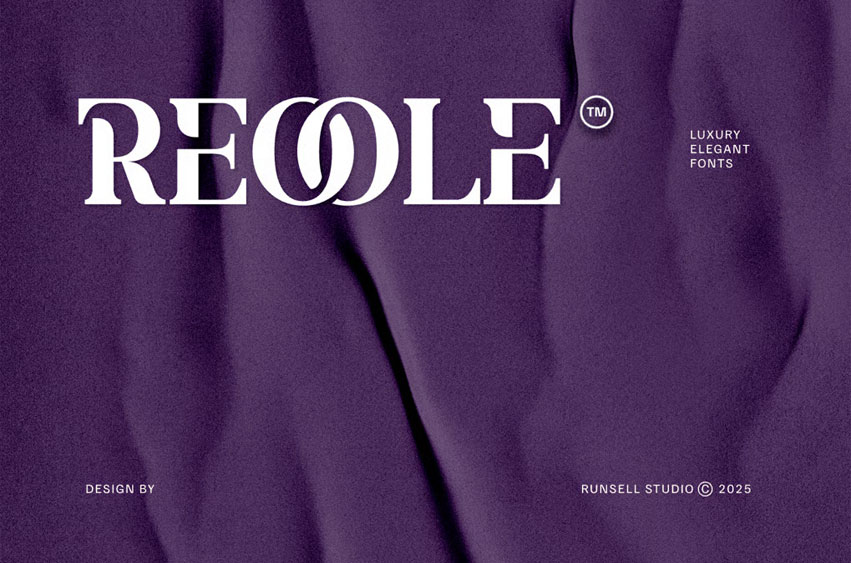
Reoole Font
Reoole Font Elegant Corporate Logo font is crafted with a clean, elegant, and minimal style, designed to elevate professional and creative projects alike. Its bold yet refined character makes it the perfect choice for a corporate logo that communicates confidence and clarity. With a balance of luxurious details and timeless proportions, this typeface adapts seamlessly to cinematic titles, premium brand campaigns, and sophisticated royal concepts.
Created to support strong brand identity, this font offers versatile applications across industries—from stylish cafe menus to modern editorial layouts. Its contemporary aesthetics allow your designs to stand out with refinement, authority, and creative distinction. Whether used for headlines, branding, or lifestyle visuals, this font ensures every project speaks with elegance and professionalism.
Elevate your design vision with Elegant Corporate Logo — where clean elegant style meets modern sophistication for timeless brand identity.